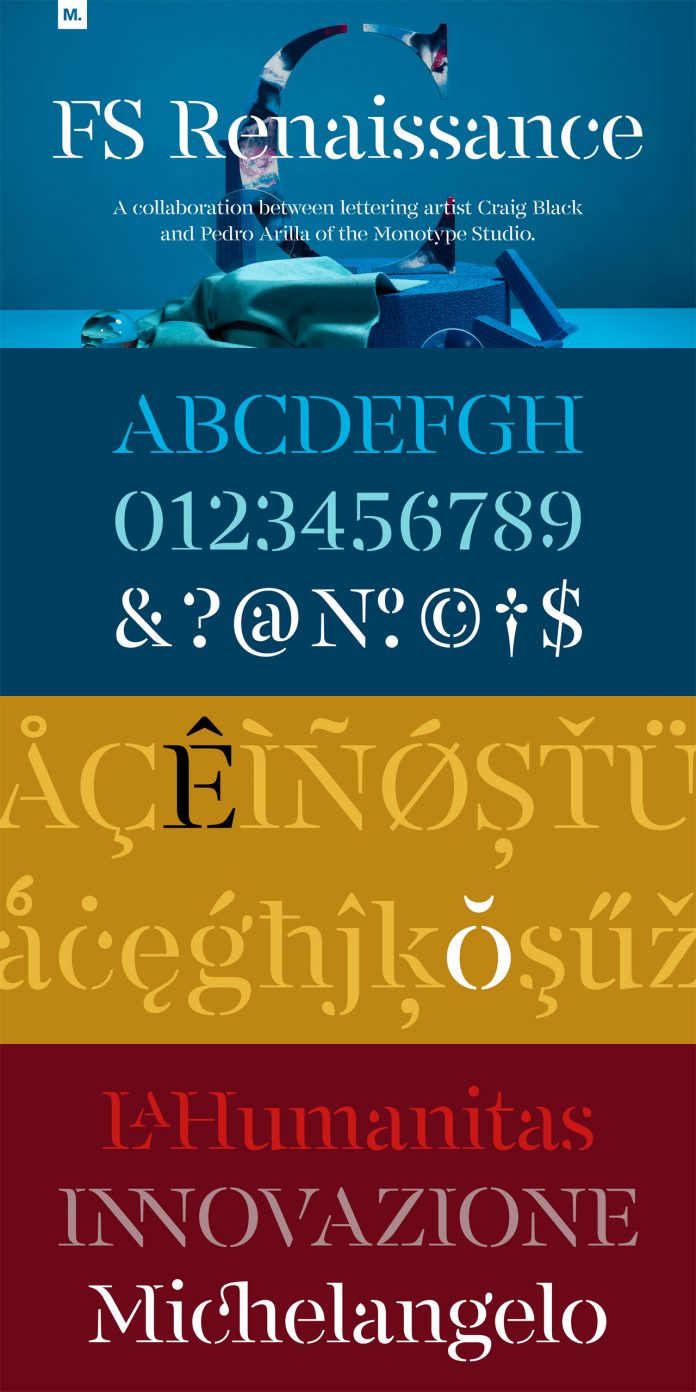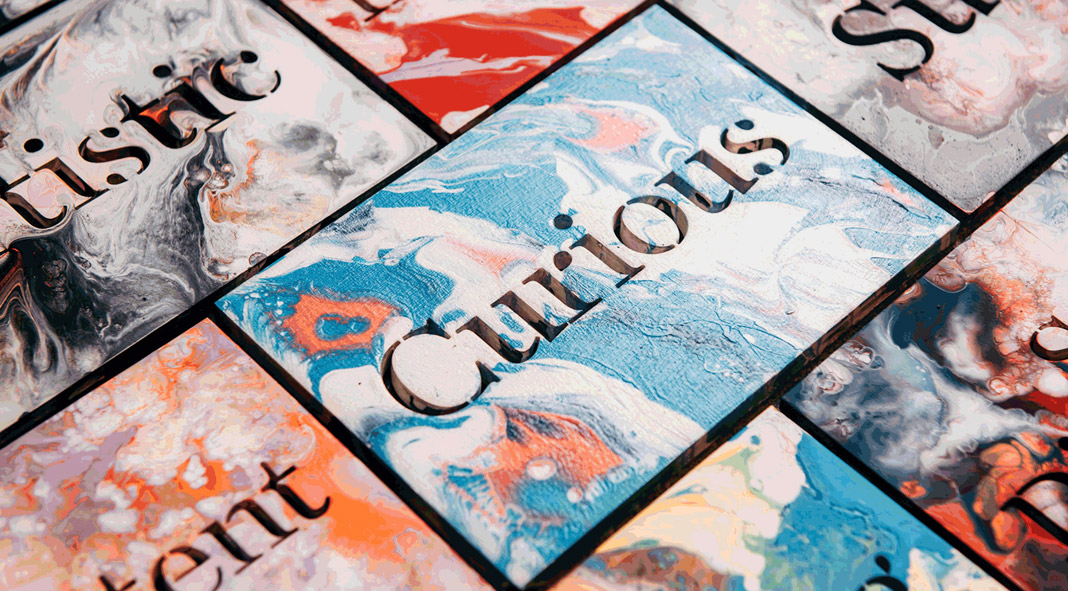
FS Renaissance, a display stencil font published by type foundry by Monotype.
Designed in collaboration between Monotype Creative Type Director Pedro Arilla and lettering artist Craig Black, FS Renaissance is a single style font that masterfully explores the intersection between art and design. As the name suggests, it is mainly inspired by the creatives of the Renaissance. Each letter of the new display stencil font has been designed as a standalone piece of art. With its hand-crafted feel like a sculptor, FS Renaissance is way more than just a traditional stencil typeface. Read more below or click on the following image to purchase the typeface.
Craig Black has created a series of handmade typographic sculptures for the launch that encapsulate the spirit of the design, showcasing the letterforms as pieces of physical art. Pedro then applied the core DNA of Craig’s work to a typographic base with a solid internal consistency, balanced with an external elegance. The pair will be discussing the project on Instagram Live this Thursday, June 11, at 11:30 a.m. ET on @bymonotype.